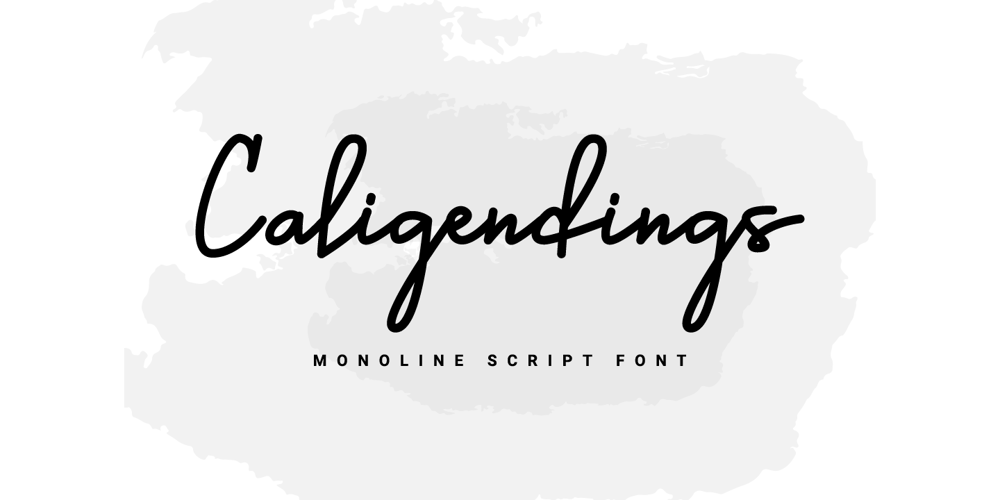
Caligendings Font Family was designed by Prio Nurokhim Aji and published by Prioritype. Caligendings contains 1 styles and family package options. An elegant looking font that’s perfect for your project and supports multilingualism. Can be applied to brochures, creative posts, boutiques and salons, women’s jewelry, wedding invitations, business cards, photographer watermarks, clothing, and more. For reference, see preview.Features:-Uppercase-Lowercase-Numeral-Punctuation-Ligature-Multilingual